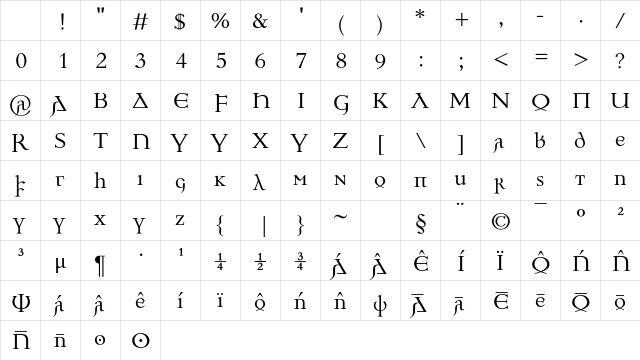
Ulfilas is a composed and adaptable typeface that performs quietly and consistently across a wide range of design contexts.
Who designed the Ulfilas normal font?